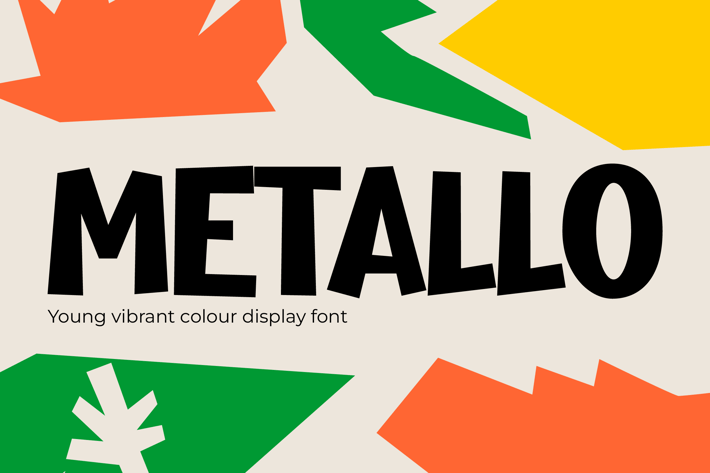
Funny Font - Metallo
Metallo
Metallo is a bold geometric display typeface crafted for energetic campaigns and dynamic headlines. With tight spacing, angular corners, and confident letterforms, this font explodes with youthful rhythm and event-ready charisma. Its high contrast and clear proportions make it strikingly readable while maintaining a bold, expressive personality—ideal for music posters, social ads, and digital branding. Metallo brings the high-octane energy of rock shows, festival promos, and streetwear drops into every line of text.
Whether you’re designing a concert flyer, crafting event promo graphics, or launching a youth-focused digital brand, Metallo gives your message unstoppable visual volume. Its punchy shapes and modular balance bring harmony to chaos while keeping things loud and expressive. Use it on YouTube thumbnails, merchandise packaging, reels, or ticket graphics to channel the boldness of Gen Z design language into unforgettable typographic moments.
Key Features
Why Designers Love METALLO :
- Geometric Boldness: Balanced yet edgy letterforms for maximum visual impact
- Youth-Driven Vibe: Feels modern, fun, and high-energy—great for younger audiences
- Perfect for Events: Designed for posters, flyers, stage graphics, or social rollouts
- Playful Angles: Strong diagonals and sharp weight contrast for an amplified design effect